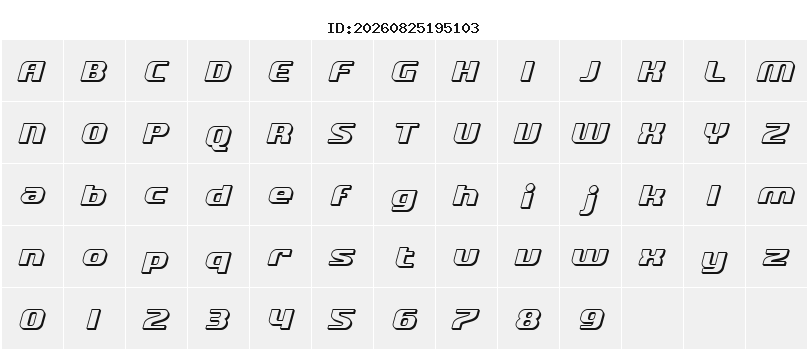
SF Quartzite Shaded Preview
• Font Name: SF Quartzite Shaded
• Font Style: Oblique
• Font ID: ShyFontsTypeFoundry: SF Quartzite Shaded Oblique: 1999
• Full Font Name: SF Quartzite Shaded Oblique
• PostScript Name: SFQuartziteShaded-Oblique
• Character Count: 246
About SF Quartzite Shaded.ttf
SF Quartzite Shaded.ttf is a modern, elegant sans-serif font designed for ultimate readability and visual harmony. Perfect for branding, headlines, web design, and print materials.